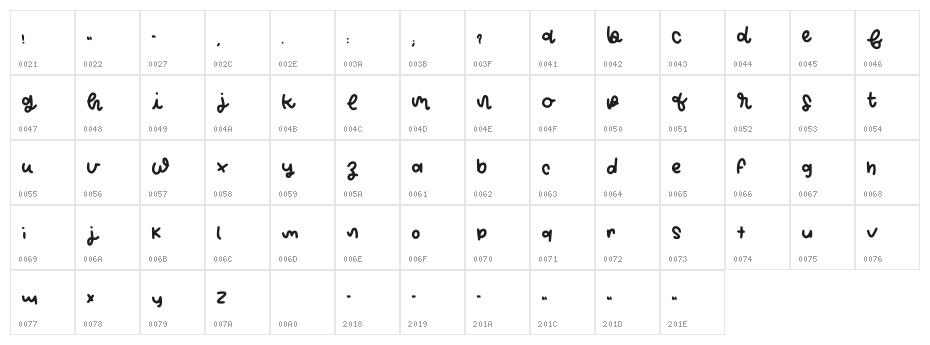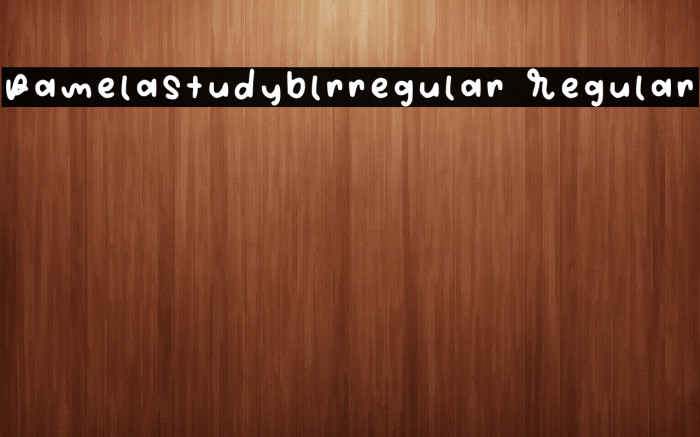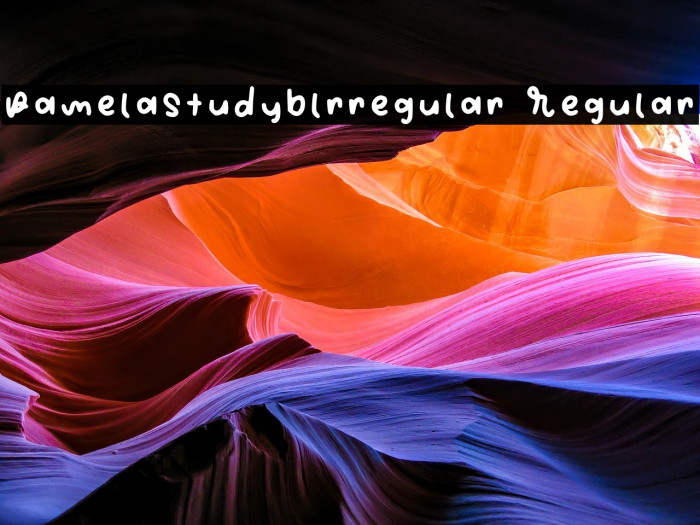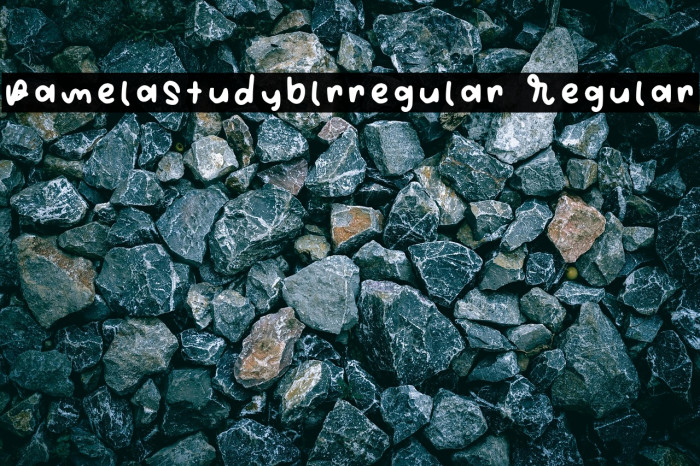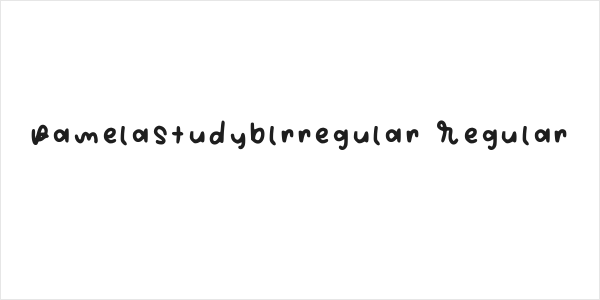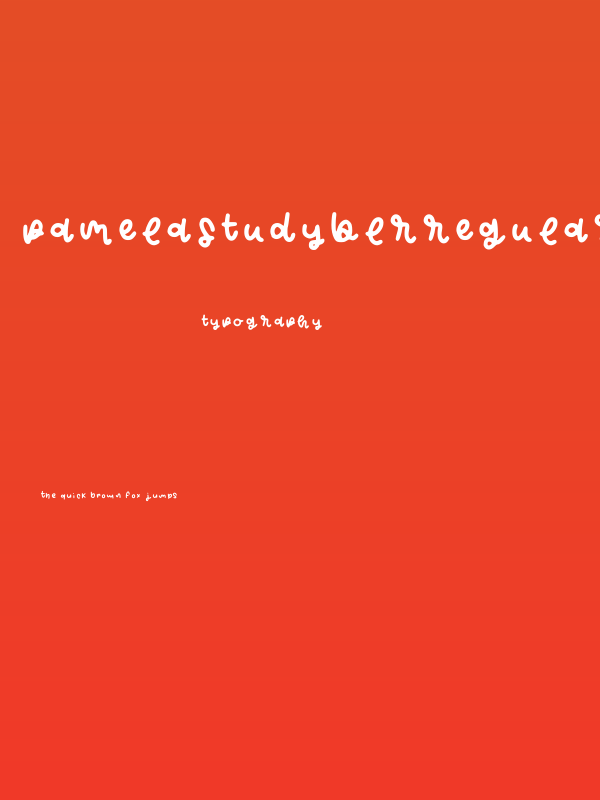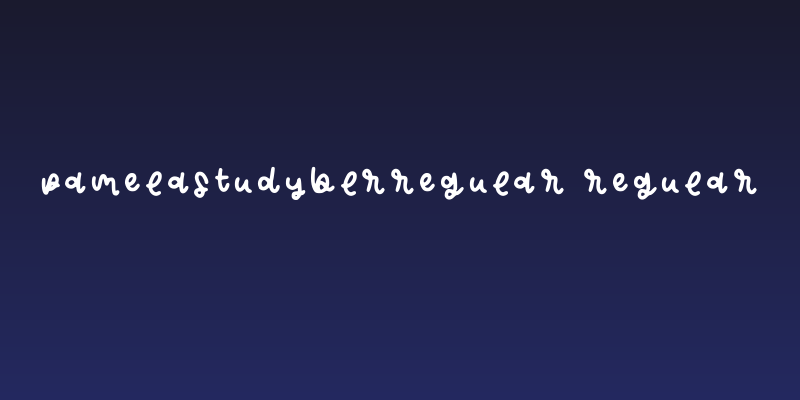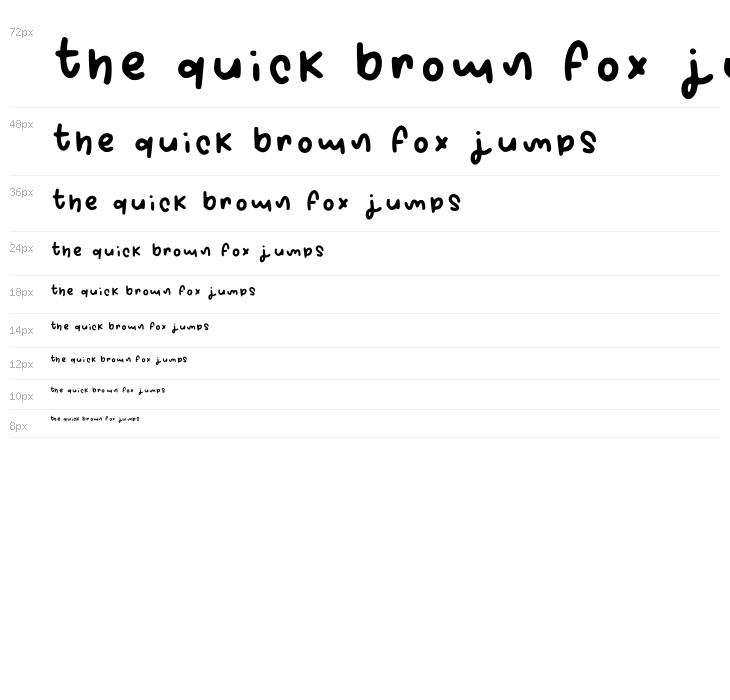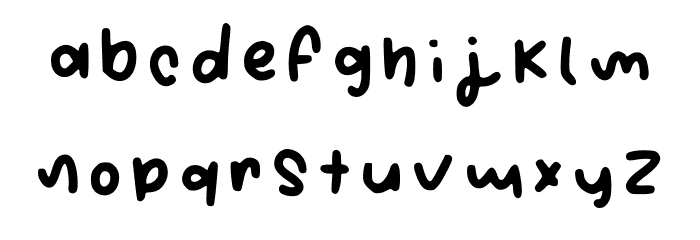
Pamelastudyblrregular Regular Font
Pamelastudyblrregular Regular Description
This font features a playful and casual handwritten style, characterized by its rounded and smooth letterforms. The strokes are consistent in thickness, giving it a uniform appearance. The letters are slightly slanted, adding a dynamic and informal touch. The overall design is friendly and approachable, making it suitable for creative and personal projects. The lowercase letters have a whimsical quality, while the uppercase letters maintain a more structured form. The spacing between characters is balanced, ensuring readability while retaining its unique style.
| Use Case | Logos, Headlines, Informal text |
| Proposed Projects | Ideal for greeting cards, personal notes, children's books, and creative branding. |